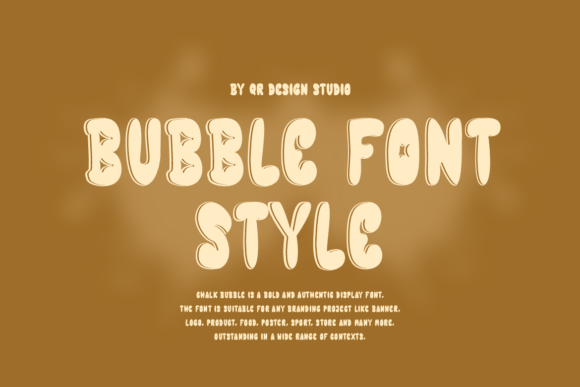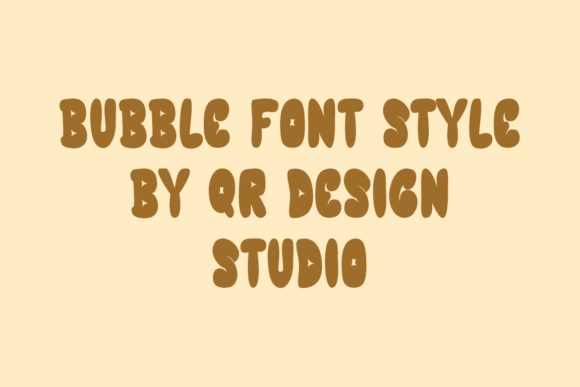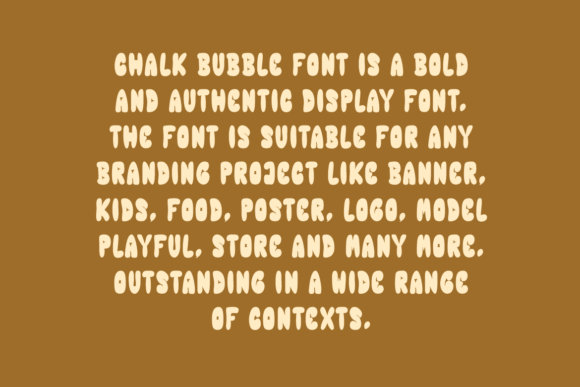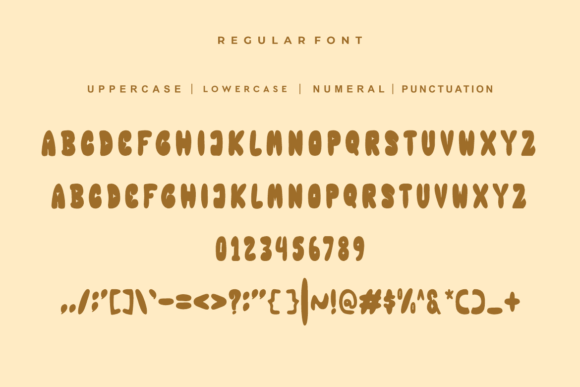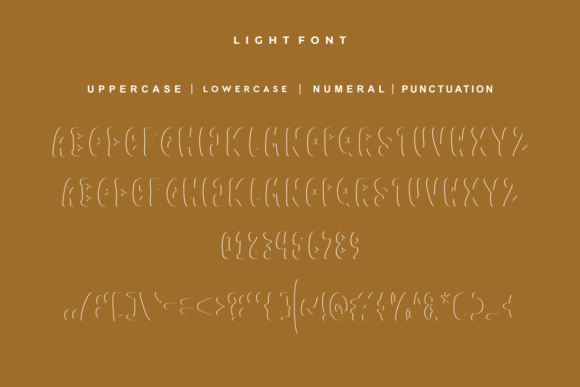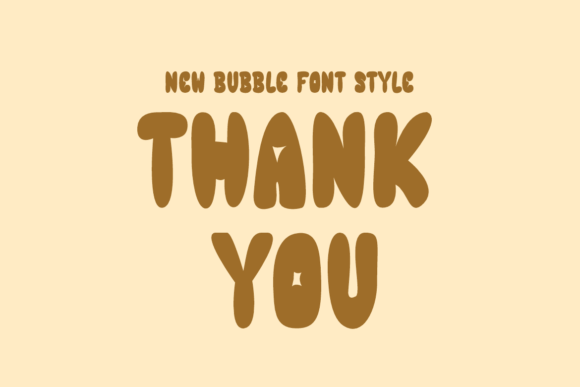
Introducing Chalk Bubble Font: Add a Joyful Touch to Your Designs
Are you looking for a font that can add a playful and whimsical touch to your designs? Look no further than Chalk Bubble Font! This cute and quirky display font is perfect for designers and crafters who want to make their creative projects stand out. In this article, we’ll take a closer look at Chalk Bubble Font and explore how it can elevate your designs to the next level.
What is Chalk Bubble Font?
Chalk Bubble Font is a unique and eye-catching display font that is inspired by the look of chalkboard writing. It’s a hand-drawn font that features bold, bubbly letters with a playful and carefree feel. The font is perfect for use in a variety of design projects, from posters and flyers to social media graphics and craft projects.
Key Features of Chalk Bubble Font
So, what makes Chalk Bubble Font so special? Here are just a few of its key features:
- Cute and Quirky Design: Chalk Bubble Font features a playful and whimsical design that’s sure to add a smile to anyone’s face.
- Hand-Drawn Letters: Each letter in the font is carefully hand-drawn to give it a unique and personalized feel.
- Bold and Easy to Read: The font is bold and easy to read, making it perfect for use in headlines and titles.
- Versatile: Chalk Bubble Font can be used in a wide range of design projects, from digital graphics to print materials.
How to Use Chalk Bubble Font in Your Designs
So, how can you use Chalk Bubble Font in your designs? Here are a few ideas to get you started:
- Create Eye-Catching Headlines: Use Chalk Bubble Font to create bold and eye-catching headlines that grab attention.
- Add a Playful Touch to Your Graphics: Add a playful touch to your digital graphics and social media posts with Chalk Bubble Font.
- Make Your Craft Projects Stand Out: Use Chalk Bubble Font to add a personal and whimsical touch to your craft projects, such as handmade cards and gift tags.
- Use in Conjunction with Other Fonts: Experiment with using Chalk Bubble Font in conjunction with other fonts to create a unique and visually appealing design.
Benefits of Using Chalk Bubble Font
So, why should you choose Chalk Bubble Font for your designs? Here are just a few benefits of using this font:
- Adds a Joyful Touch: Chalk Bubble Font adds a playful and joyful touch to your designs, making them more engaging and fun.
- Increases Creativity: The unique and whimsical design of Chalk Bubble Font can help to inspire creativity and bring new ideas to life.
- Versatile: Chalk Bubble Font can be used in a wide range of design projects, making it a versatile addition to your font collection.
- Easily Readable: The bold and easy-to-read design of Chalk Bubble Font makes it perfect for use in headlines and titles.
In conclusion, Chalk Bubble Font is a unique and eye-catching display font that can add a playful and joyful touch to your designs. With its cute and quirky design, hand-drawn letters, and bold and easy-to-read style, it’s perfect for use in a wide range of design projects. Whether you’re a designer, crafter, or simply someone who loves to create, Chalk Bubble Font is a great addition to your font collection. So why not give it a try and see how it can elevate your designs to the next level?
So, add this beautiful display font to each of your creative ideas and notice how it makes them stand out! With Chalk Bubble Font, you can create designs that are fun, playful, and engaging, and that will leave a lasting impression on your audience.